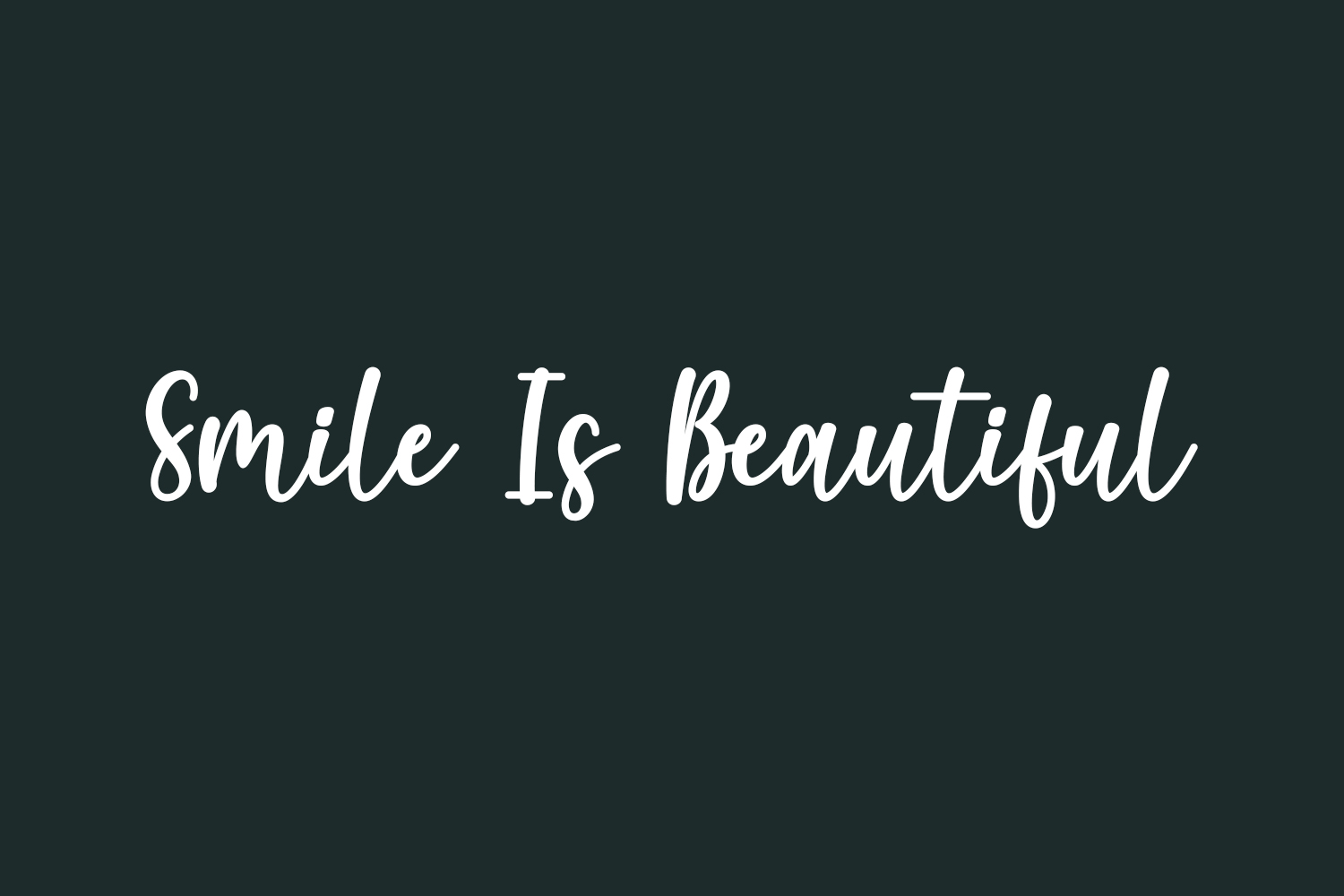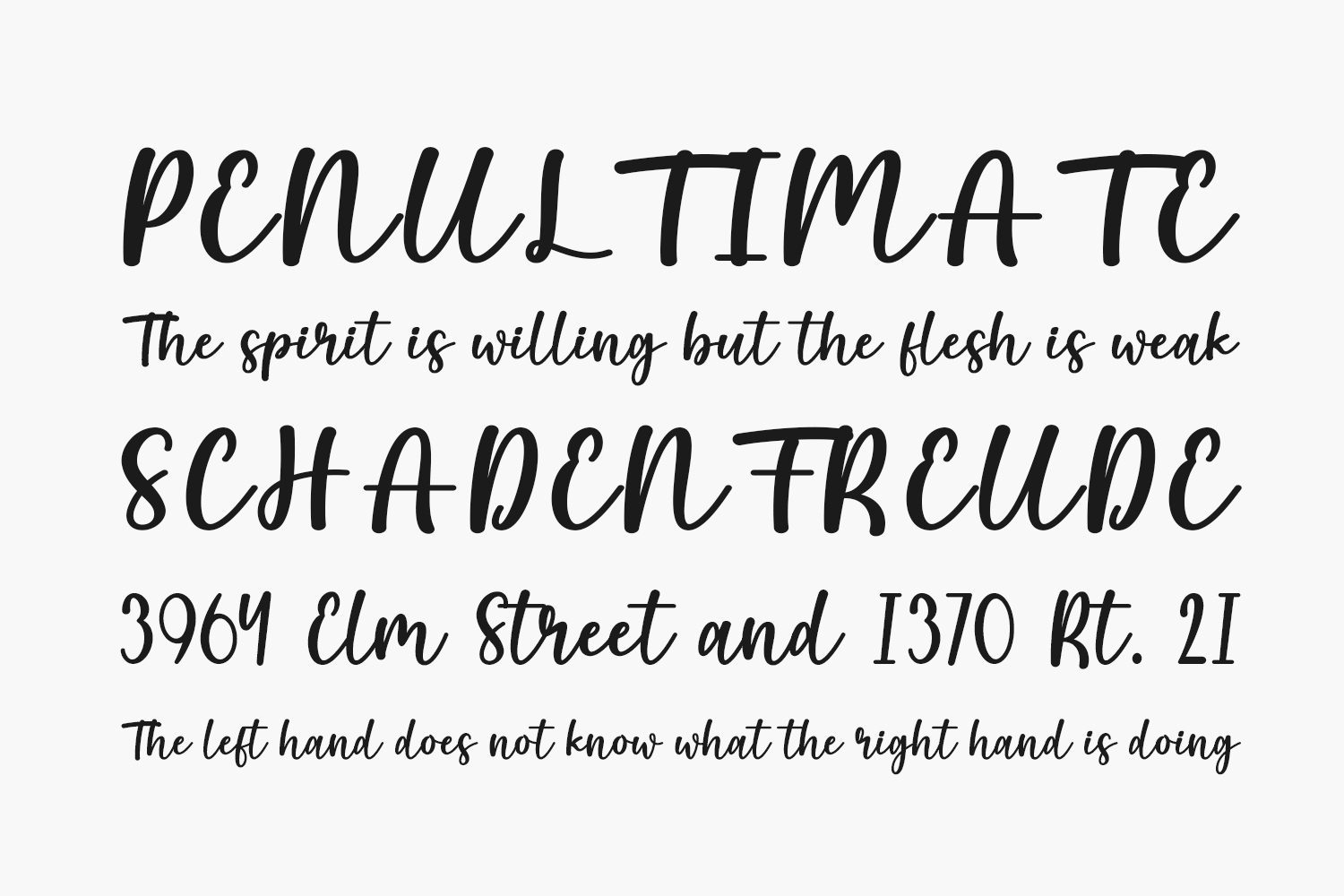
Embrace the elegance of Smile Is Beautiful Free Font, a flowing handwritten font that exudes charm, ideal for your cherished projects. Let yourself be captivated by its uniquely distinct and timeless style, and leverage it to craft truly spectacular designs. Smile Is Beautiful Free Font was designed by Wahyu Studio and is free for personal use only. Please purchase the full version for commercial use.